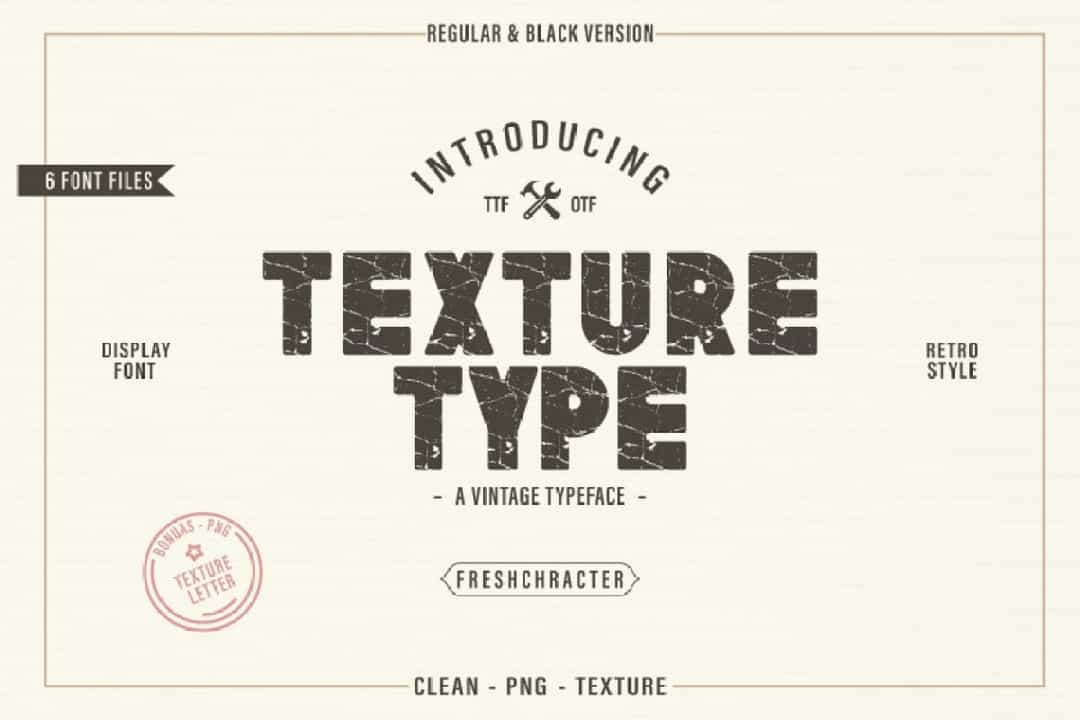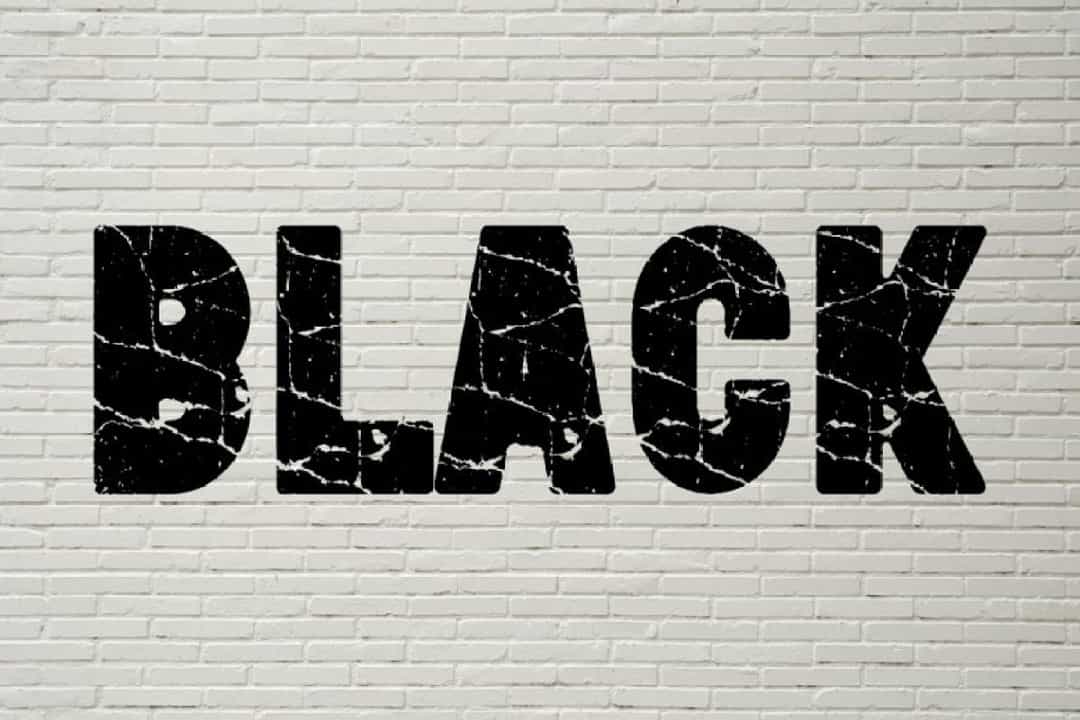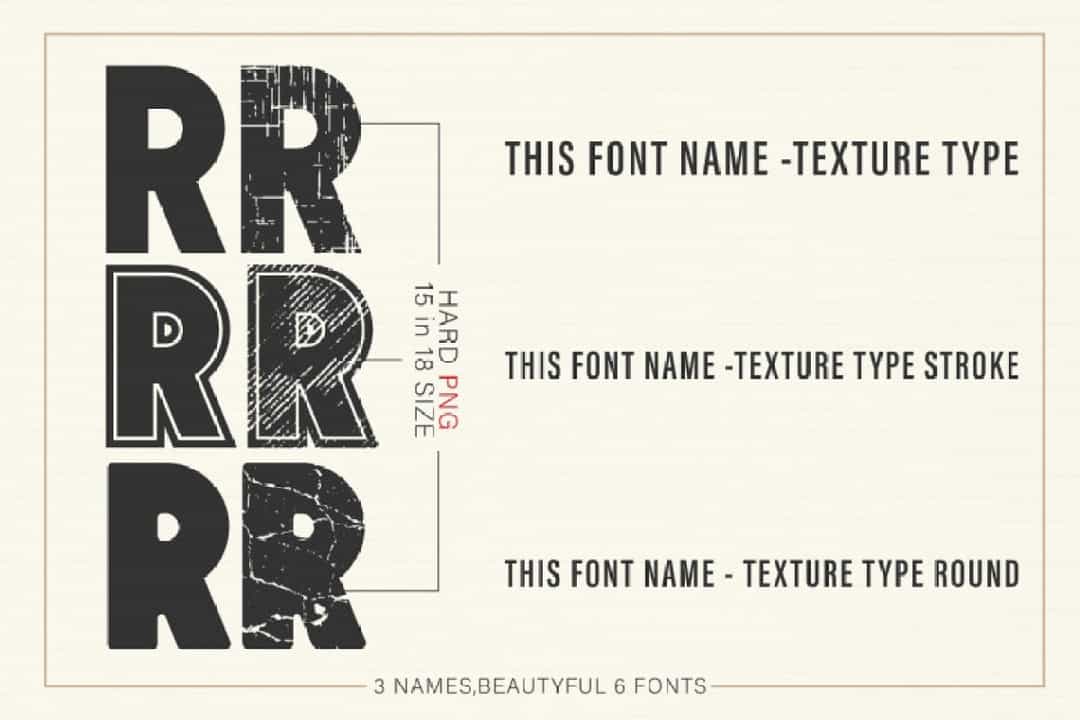
Texture Type is a classic and retro Grunge colored text font perfect for display. Integrating this font into your designs will produce delightful results; use this font on T-shirts, mugs, baby clothes covers or headings and you’ll love what happens.